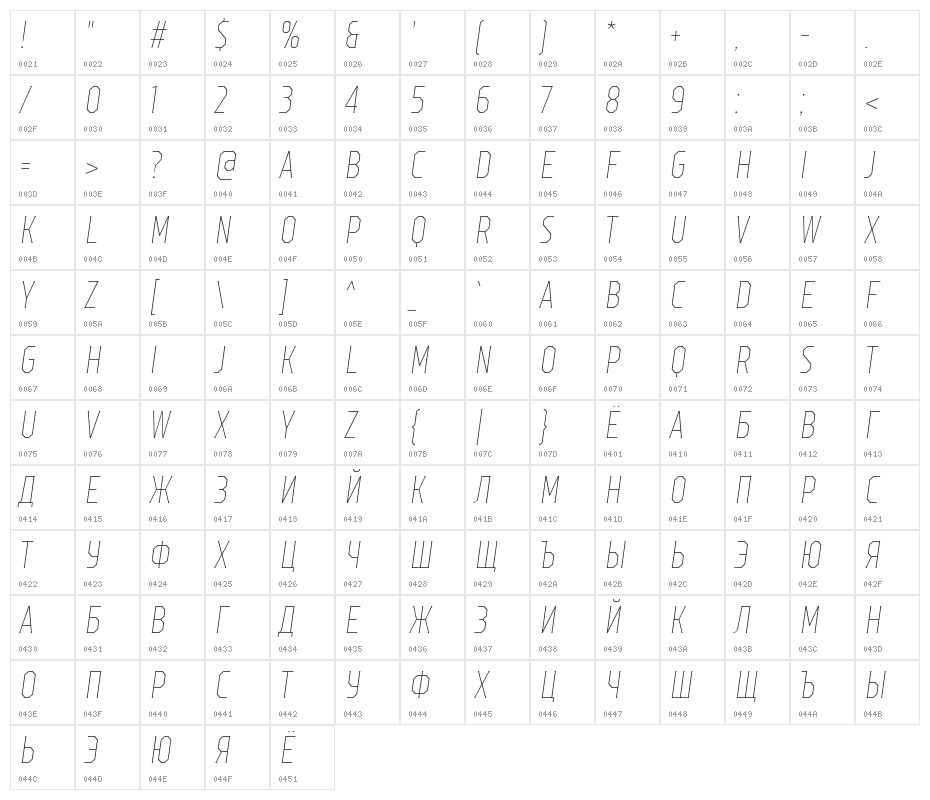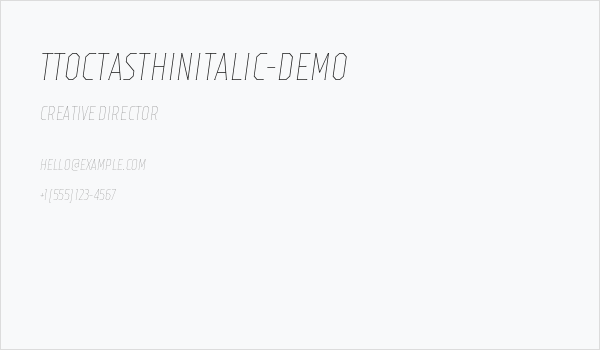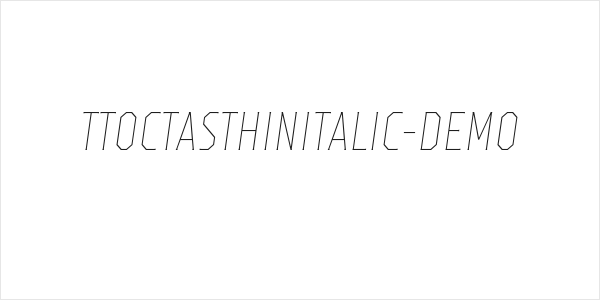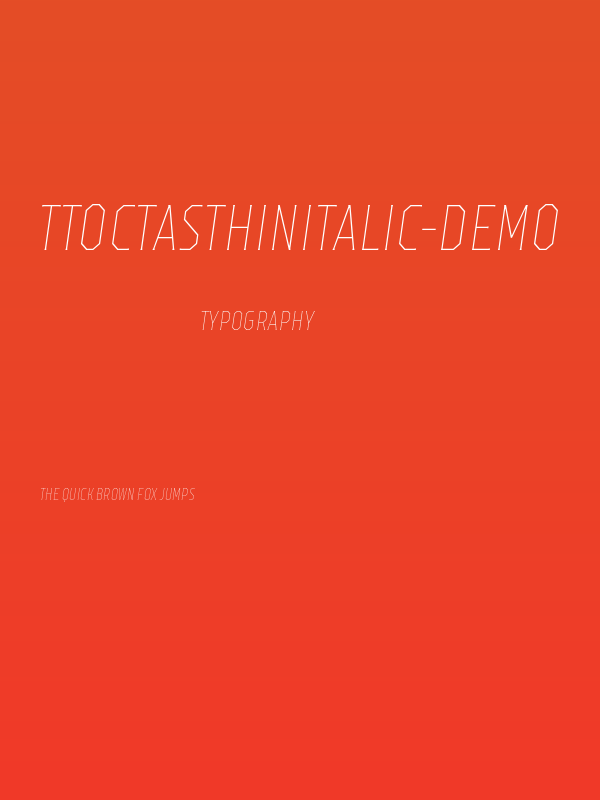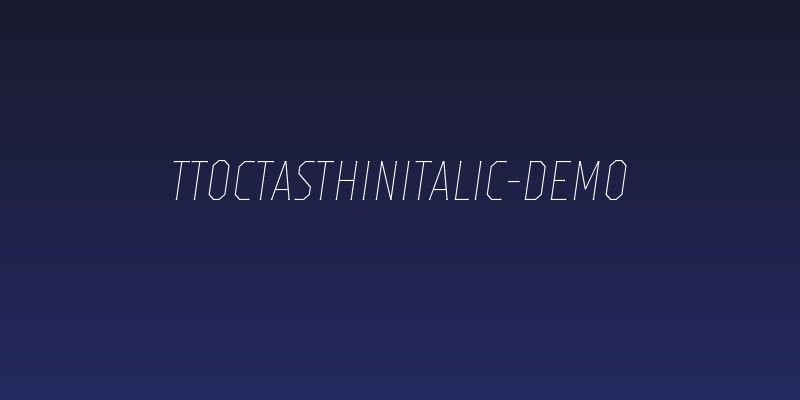
TTOctasThinItalic-DEMO Font
TTOctasThinItalic-DEMO Description
This font features a geometric and angular design with a thin and italicized style. The characters are constructed with straight lines and sharp angles, giving it a modern and technical appearance. The uppercase and lowercase letters maintain a consistent slant, enhancing the italic effect. The numerals and special characters follow the same design principles, ensuring uniformity across the typeface. The overall look is sleek and minimalistic, making it suitable for contemporary design projects.
Use CaseHeadlines, Logos, Digital Interfaces
Proposed ProjectsIdeal for tech branding, modern posters, digital interfaces, and minimalist graphic design.